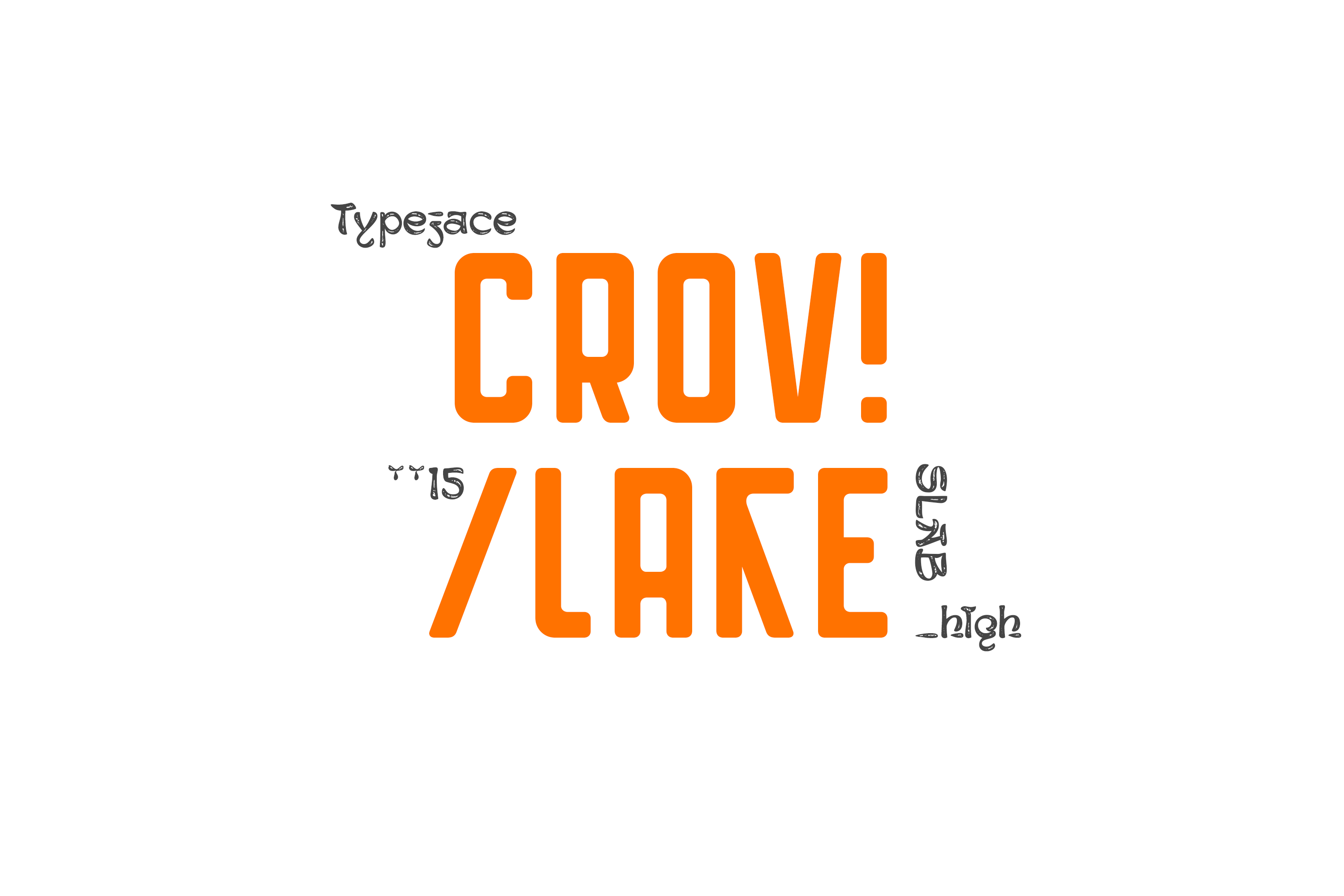
CROVILAGE Typeface by Saystype
Introducing our new product "Crovilage" sans font with Slab Height, Clean, Semi Rounded, Stylish and Ellegant style. Suitable for any kind of project such as logos, Branding, App, Letterhead Etc.
Crovilage Features:
- Latin Multilingual Support